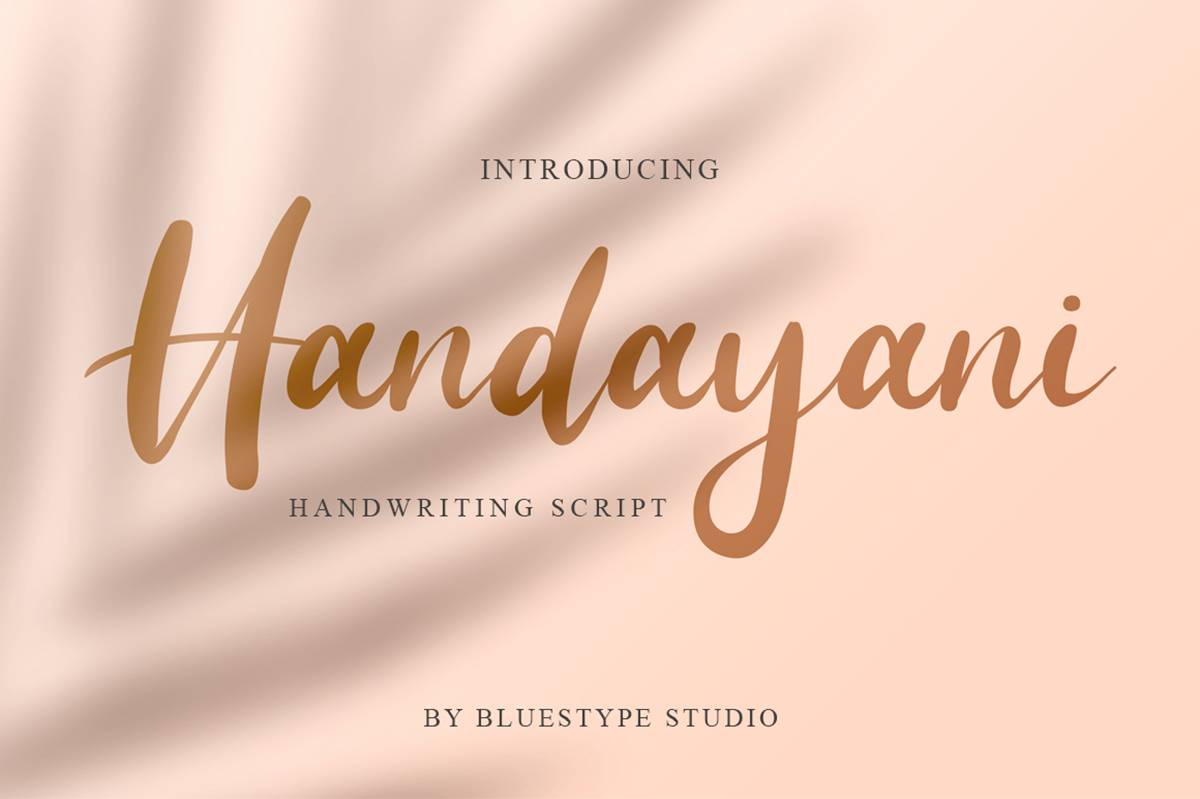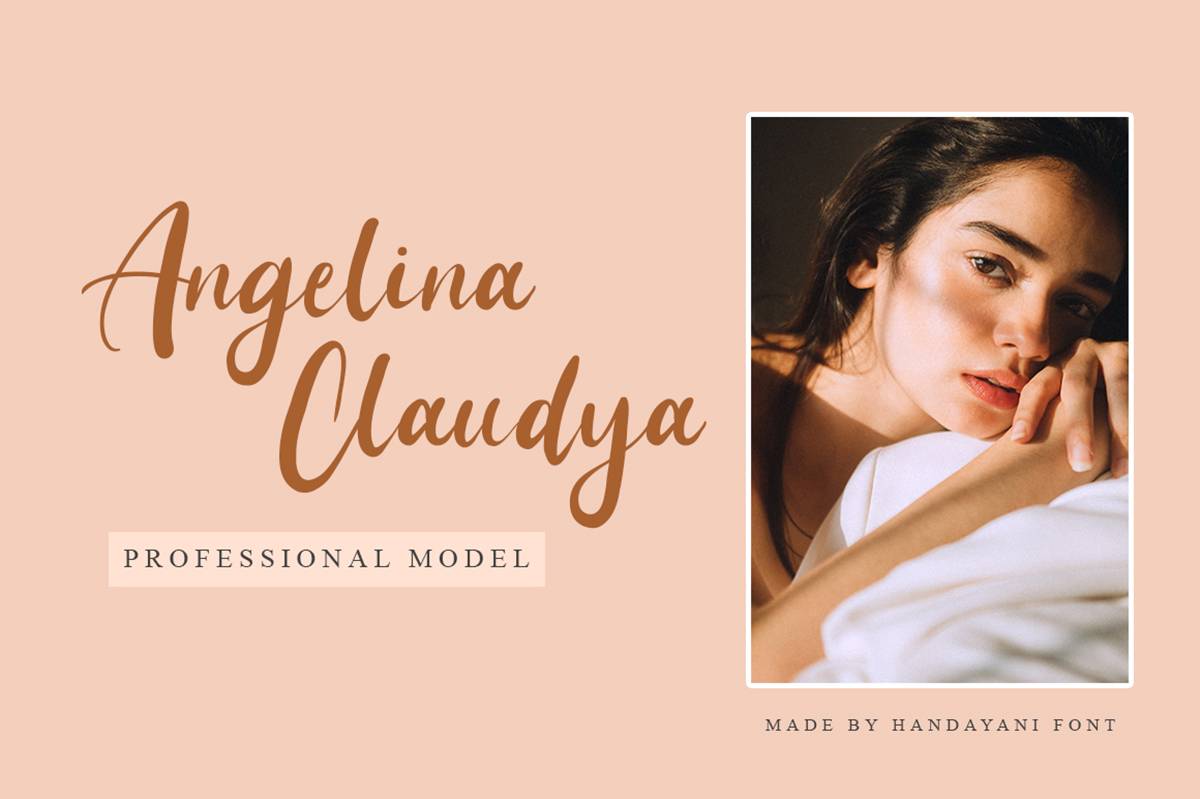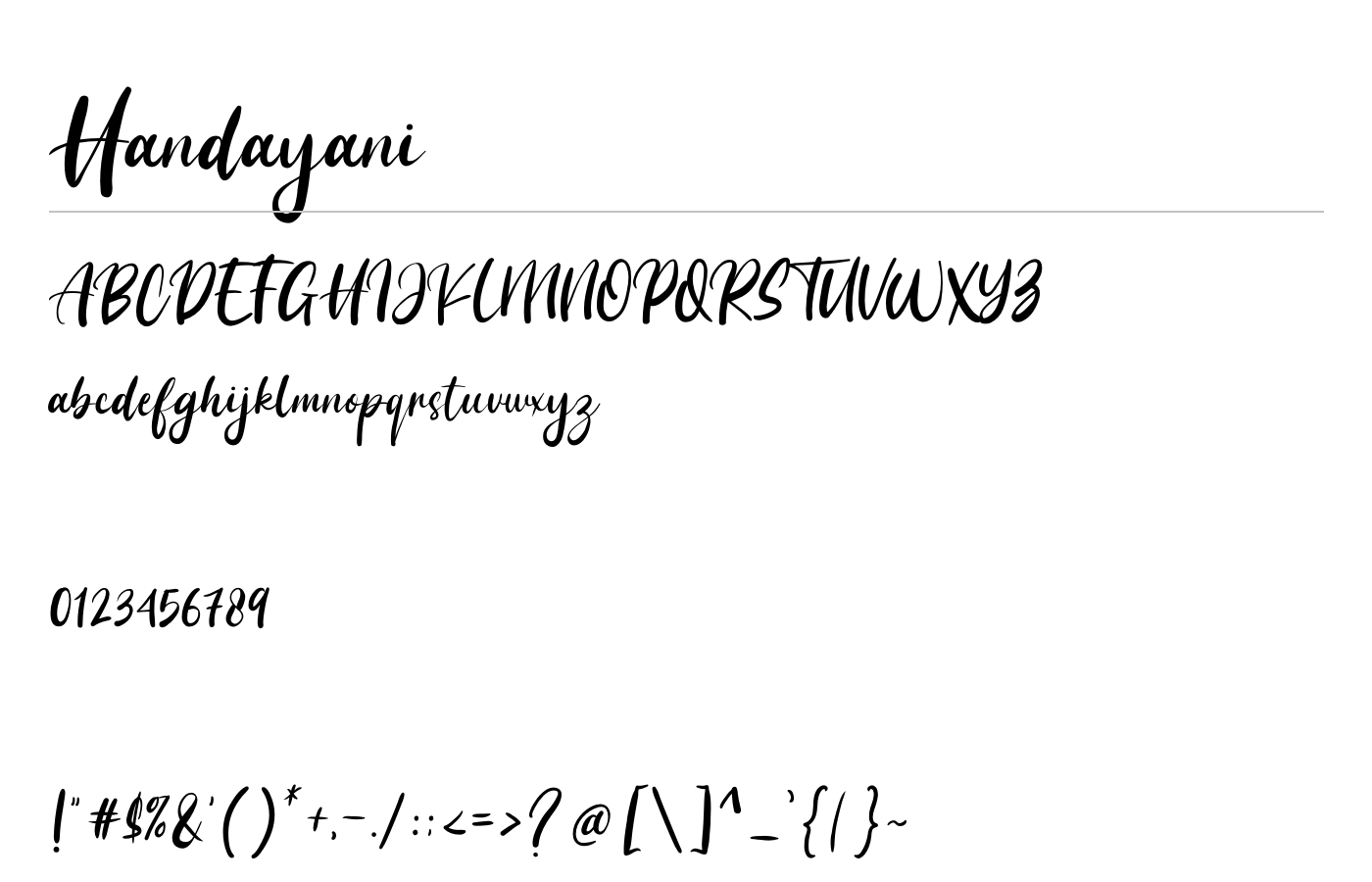
Handayani is a lively script font with a handwritten feel, featuring fluid strokes and moderate contrast that give it a warm and personal touch. Its elegant yet casual style makes it perfect for creative projects like invitations, branding, and social media, where a friendly and approachable atmosphere is desired. This font works well for headlines or display use, adding a charming and expressive flair to any design.
Handayani Font
About Handayani Font
| Font family | Handayani Font |